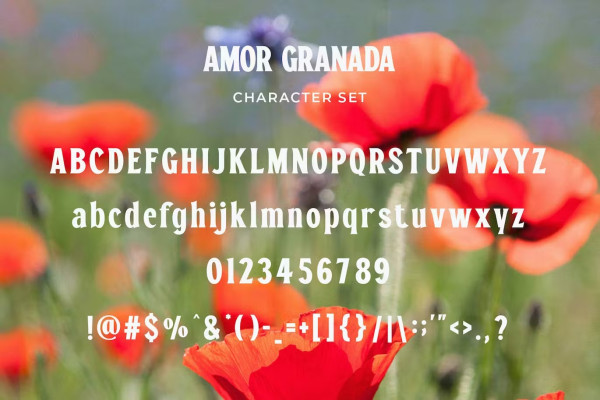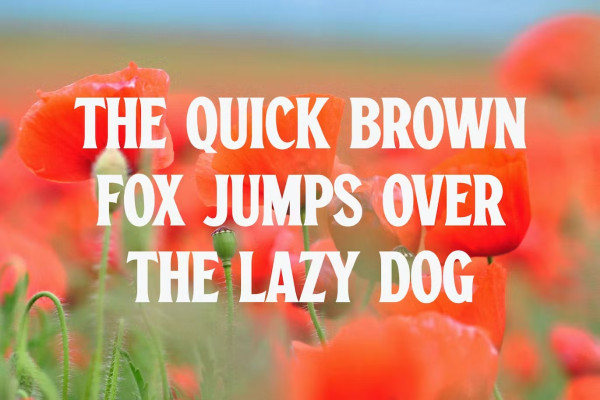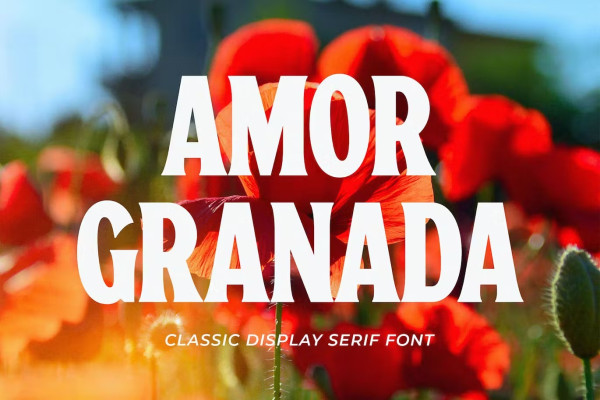
Amor Granada Font
Amor Granada Font – Classic Display Serif, is a modern and simple font ideal for displaying headlines, logos, brands, magazines, product packaging, and the invitations.